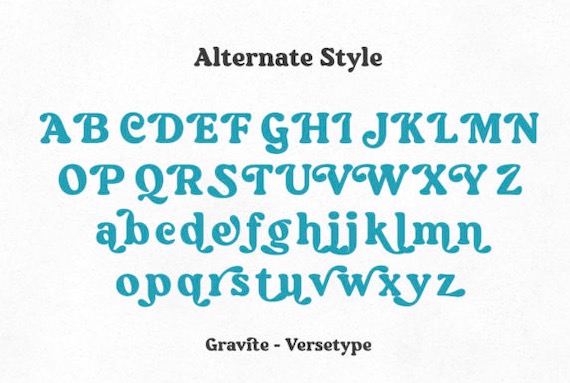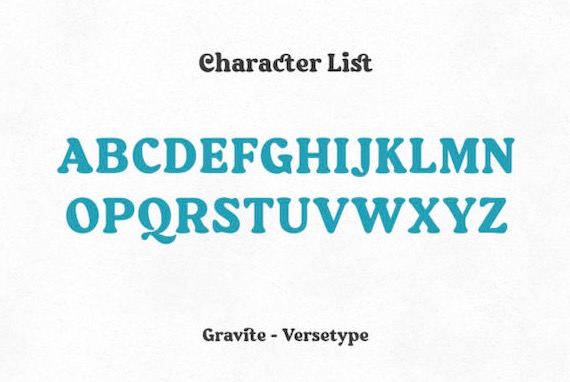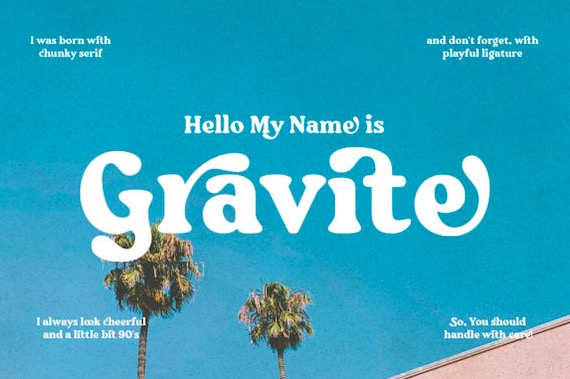
Gravite is a familiar fresh display font that was designed and shared by Versetype along with a great look. And maybe you are already familiar with this style, a style that is often found in the marketplace, it seems retro and vintage. However, Gravite has a strong character with Bold weight, playful ligature, and alternate with additional swash which is very suitable for design projects with a 90′ mood. Gravite’s strong character makes it suitable for use on magazine covers, editorial designs, logo concepts, advertising, packaging, and some 90′ style layouts. This font is PUA encoded which means you can access all of the amazing glyphs and ligatures with ease!
Gravite Display Vintage Font